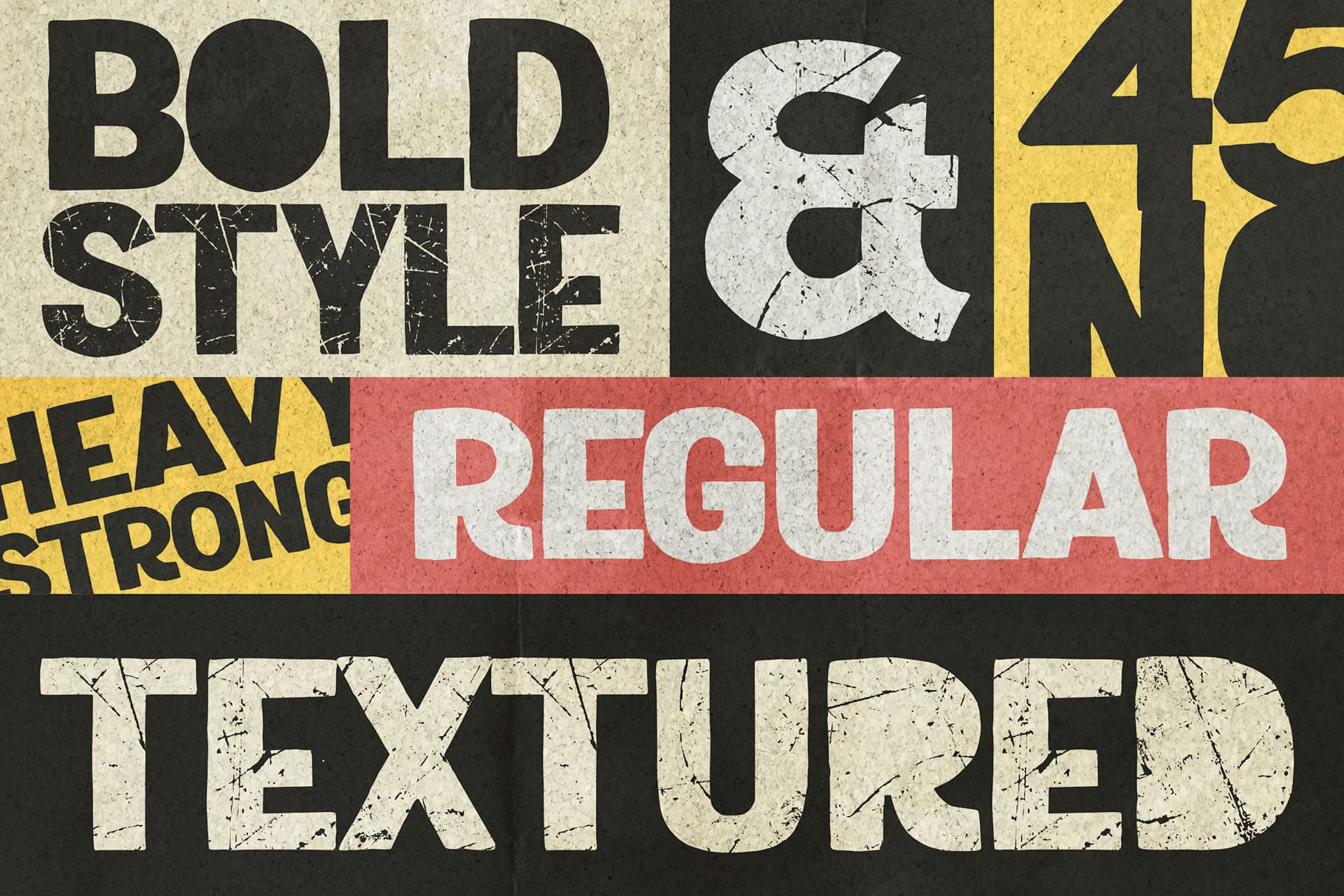
Roads Block
Roads Block Heavy Font for Strong Visual Identity
Roads Block Heavy Font is made for designs that need weight, confidence, and a strong first impression. Built with bold block-style lettering, this font brings a powerful visual presence to branding, posters, apparel, packaging, and promotional graphics.
It is the kind of display font that works best when your message needs to feel direct, solid, and memorable. Whether you are designing a logo for a bold brand, a headline for a campaign, a poster for an event, or a t-shirt graphic with attitude, Roads Block gives your words a firm and commanding personality.
This font package includes both a clean regular version and a textured version, giving designers more room to create different moods without leaving the same visual family. Use the regular style for sharp and structured layouts, then switch to the textured style when you want a rougher, more rugged, worn-in effect.
Roads Block has a heavy and powerful display style. Its blocky construction gives every letter a grounded, solid feel, while the overall look stays practical for real design use. It is strong without being overly complicated, making it useful for designers who need readable, impactful typography.
The regular version feels bold, clean, and assertive. It is ideal for projects where clarity matters, such as logo marks, brand headlines, packaging titles, signage-style graphics, or digital banners.
The textured version adds a rougher surface and a more expressive character. It works especially well for designs inspired by industrial visuals, outdoor branding, sports graphics, rugged merchandise, vintage-style posters, and bold editorial layouts.
Together, both styles make Roads Block a flexible choice for projects that need strength, structure, and visual impact.
Best Use Cases for Roads Block Heavy Font
Roads Block Heavy Font is a strong fit for creative projects that need bold display typography. It can help brand names, headlines, and short phrases stand out with authority.
Use it for logo design when the brand needs to feel tough, confident, or energetic. It also works well for apparel graphics, especially t-shirts, hoodies, caps, sports merchandise, and streetwear-inspired collections.
For packaging designers, Roads Block can bring a strong shelf presence to products that need a bold and memorable label. It is suitable for product names, headline text, badges, stickers, and promotional packaging layouts.
Poster designers can use it for event titles, music posters, sports posters, automotive graphics, outdoor campaign visuals, or motivational quote artwork that needs a stronger voice.
Digital creators can also use Roads Block for social media graphics, thumbnails, banners, ads, and bold title layouts where the typography needs to carry the message quickly.
Key Features
• Heavy and powerful display font style
• Regular and textured font styles included
Designers love Roads Block because it gives instant strength to a layout. The letterforms are bold, compact, and visually firm, which makes them useful for projects where the text needs to become a major part of the design.
The two included styles also make the font more practical. You can use the regular version for clean brand systems, then use the textured version for campaign graphics, posters, merchandise, or product visuals that need more grit and personality.
Roads Block is especially helpful for designers working with short, high-impact text. Brand names, headlines, labels, slogans, team names, product titles, and poster phrases can all benefit from a typeface with this kind of visual weight.
For creative studios and brand owners, Roads Block offers a strong direction without making the design process complicated. It gives you a clear typographic mood from the start: bold, solid, powerful, and ready to stand out.
For a clean and confident pairing, combine Roads Block with Bolde. Bolde can support Roads Block with a more modern sans serif feel, making it useful for secondary text, brand details, or structured layouts.
For automotive, racing, or energetic sports-inspired visuals, pair it with Brake Disc. This pairing can create a dynamic visual system for posters, apparel, and bold promotional graphics.
Use it for logos, posters, packaging, apparel, social media visuals, sports graphics, and powerful headlines that need to be seen quickly and remembered clearly.